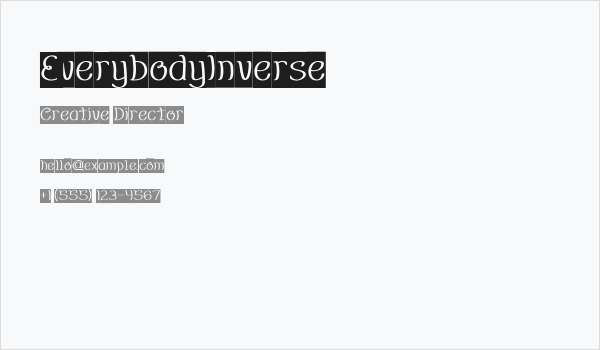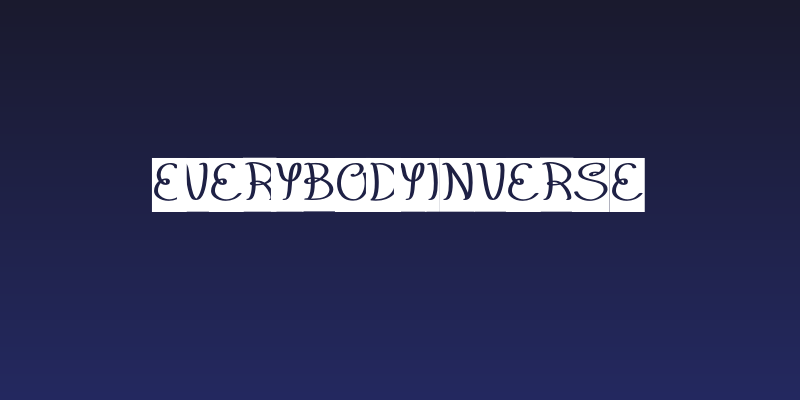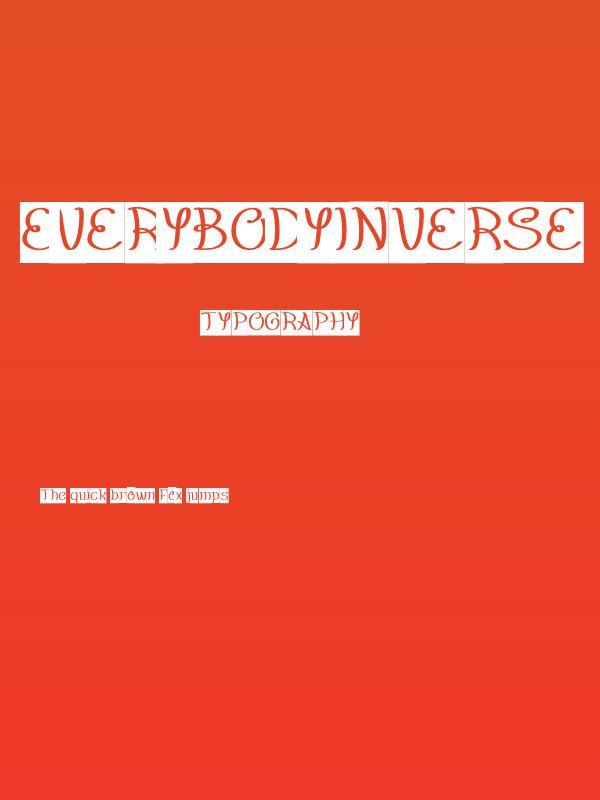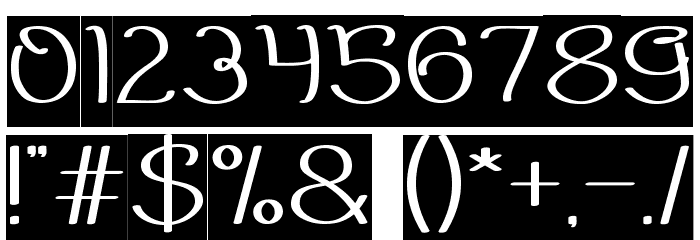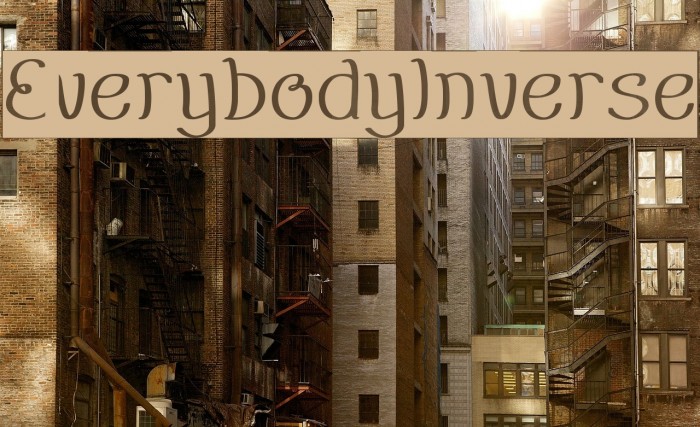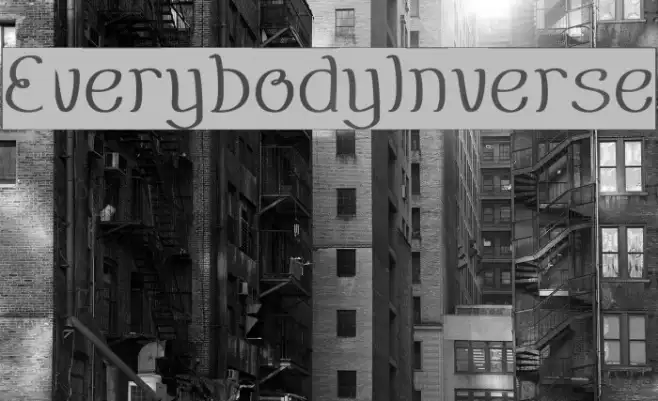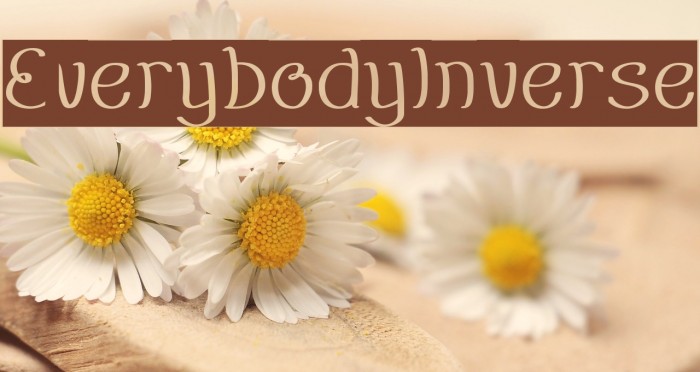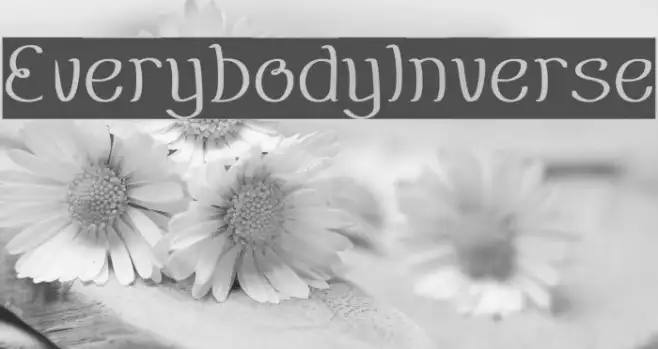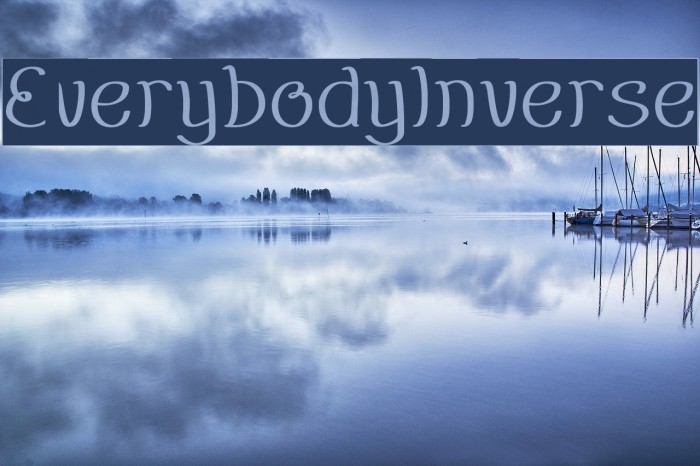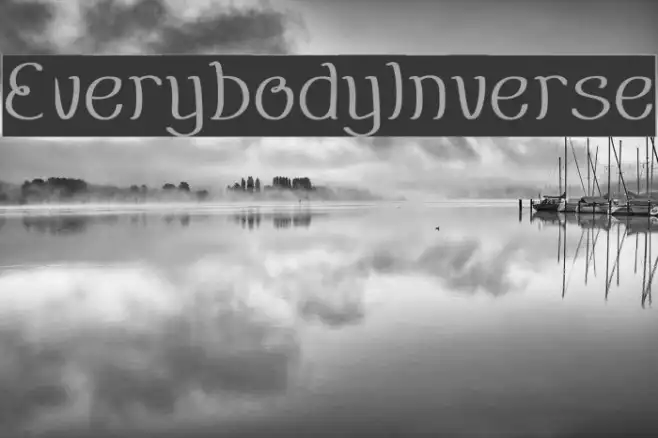
EverybodyInverse Font
EverybodyInverse Description
This font features a playful and whimsical style with a handwritten appearance. The characters have a unique flair with curvy and flowing lines, giving it a lively and dynamic feel. The uppercase letters are bold and prominent, while the lowercase letters maintain a consistent style with slightly exaggerated curves. The numbers and special characters are designed to match the overall playful aesthetic, making them stand out. This font is ideal for projects that require a fun and informal touch, such as children's books, greeting cards, or playful branding.
| Proposed Projects | Children's books, greeting cards, playful branding, informal invitations. |